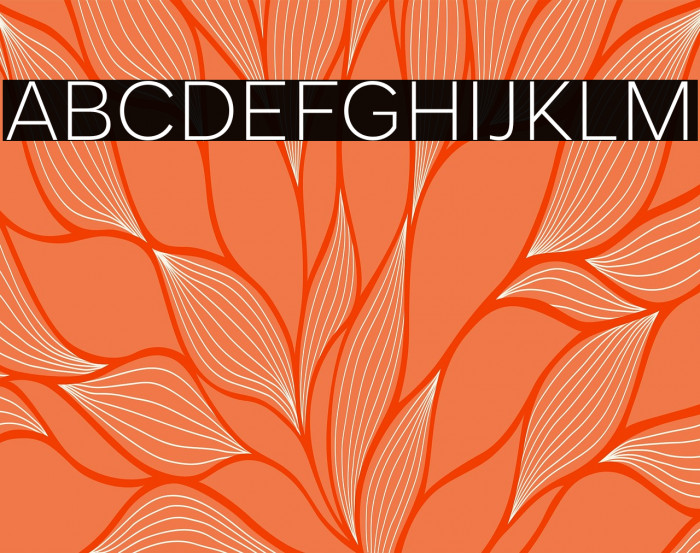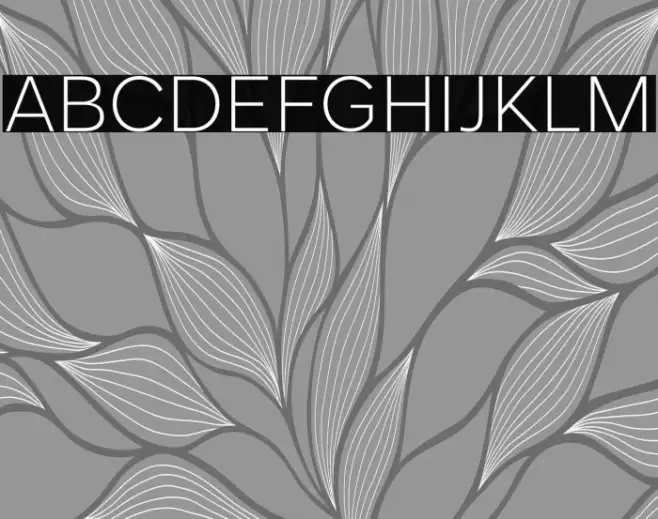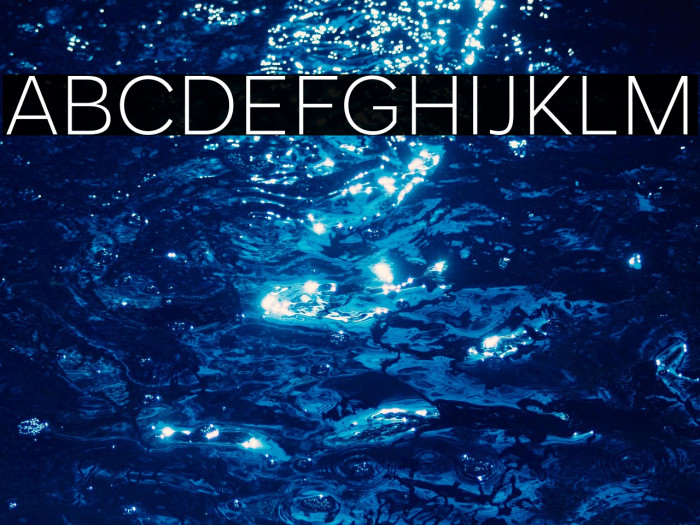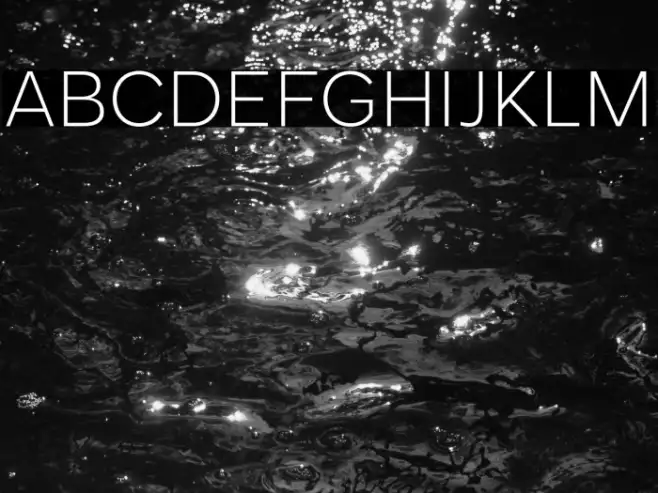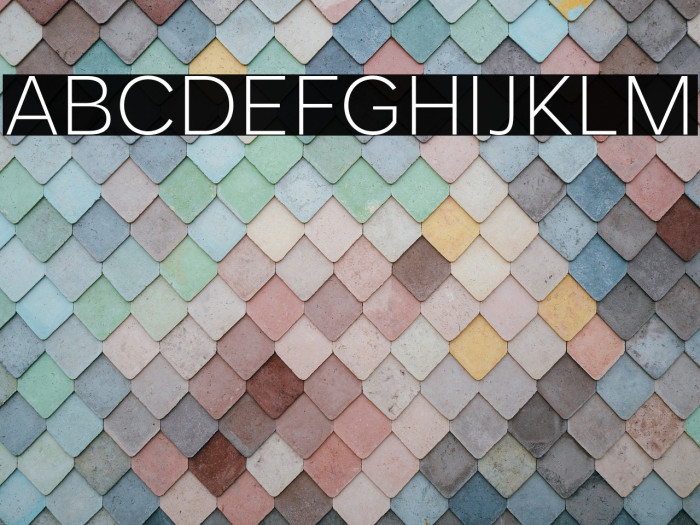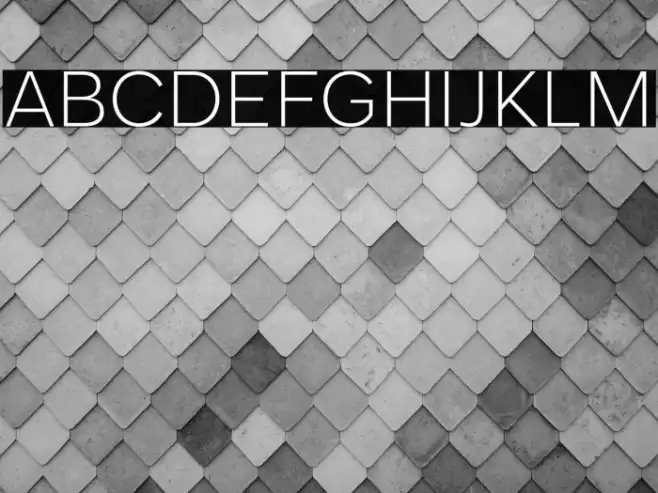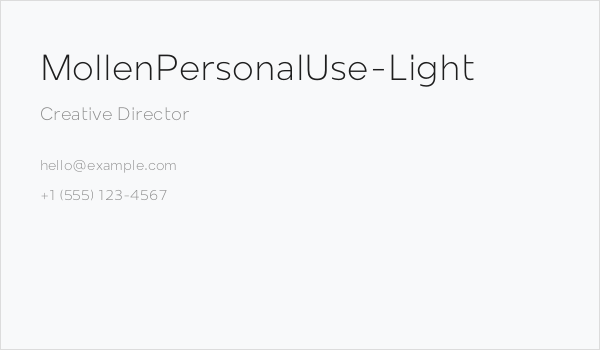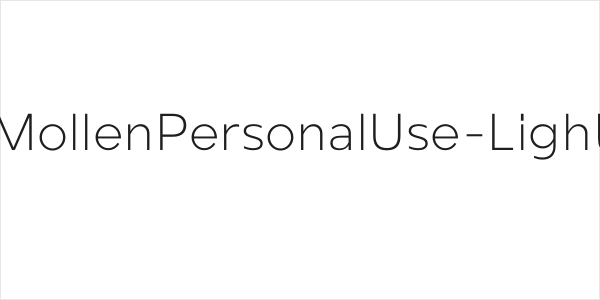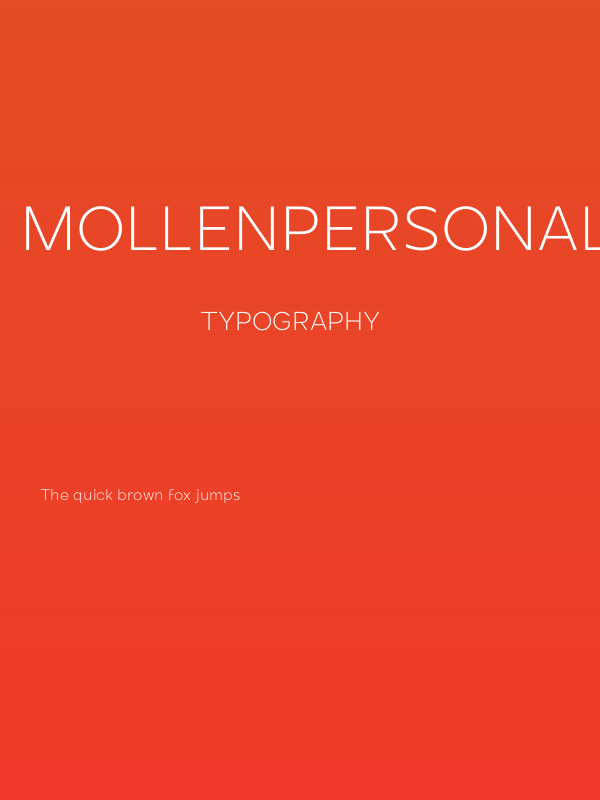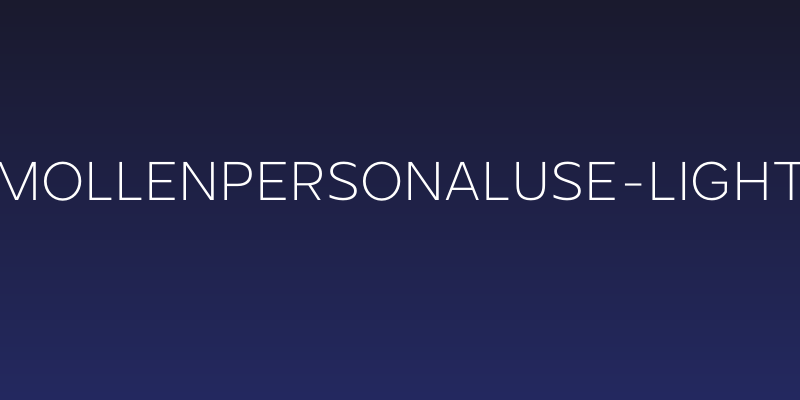
MollenPersonalUse-Light Font
MollenPersonalUse-Light Description
This font features a clean and modern sans-serif design with a light weight, offering a sleek and minimalist appearance. The characters are well-proportioned with a consistent stroke width, providing a harmonious and balanced look. The uppercase and lowercase letters maintain a uniform style, enhancing readability. The numerals are clear and distinct, making them suitable for various applications. Special characters are included, adding versatility to the font's use. Its simplicity and elegance make it ideal for contemporary design projects.
| Proposed Projects | Ideal for branding, web design, editorial layouts, and corporate materials. |